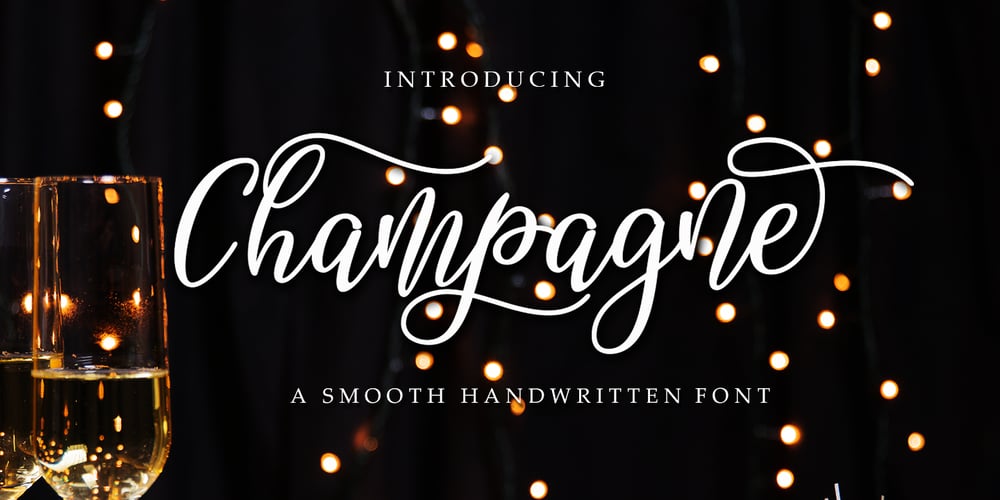
Champagne
Champagne font
Champagne Font Family was designed by Cut Nurfajarlia and published by Alandya TypeFoundry. Champagne contains 1 styles and family package options. Champagne is a beautiful and elegant script, perfect for designing branding, blog logos, print ads, book covers, film covers, apparel, cards, logos, posters, and more. OpenType features give you more alternatives in designing. To enable the OpenType Stylistic alternates, you need a program that supports OpenType features such as Adobe Illustrator CS, Adobe Indesign & CorelDraw X6-X7. There are additional ways to access alternates/swashes, using Character Map (Windows), Nexus Font (Windows), Font Book (Mac) or a software program such as PopChar (for Windows and Mac).